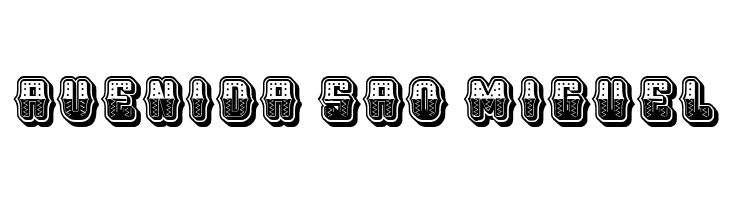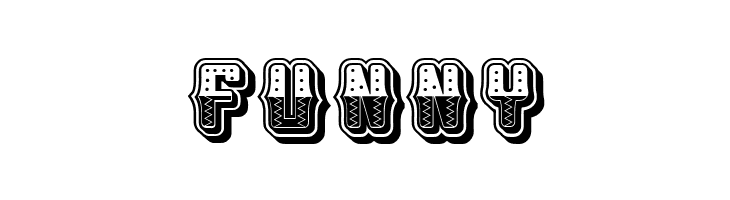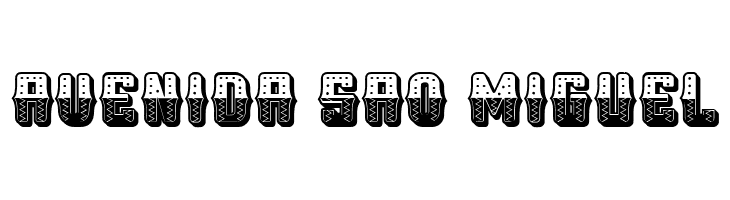
• Amidah-Regular
An elegant script font with flowing, ornate cursive letters and intricate flourishes.
• Amidah-Regular
An elegant script font with intricate loops and swashes, ideal for artistic projects.
• Amiela
An elegant, flowing script font with ornate, cursive strokes.
• Amigate Endgame
A bold, energetic script font with a handwritten style.
• Amigate Endgame Italic
A bold, italicized handwritten font with dynamic strokes.
• Amigdala
A bold, dynamic script font with a handwritten feel and elegant curves.
• Amigdala
A bold, dynamic script font with a modern and flowing style.
• Amigo Regular
A bold, decorative font with intricate patterns and a three-dimensional effect.
• Amigo Rustique Regular
A bold, decorative font with intricate patterns and a three-dimensional effect.
• Amigos
A bold, cursive script font with elegant, flowing letterforms.
• Amigos Script
A bold, flowing script font with elegant curves and dynamic strokes.
• Amigos Script
A bold, flowing script font with interconnected letters and a lively, dynamic style.
• Amigoste
A lively and expressive handwritten font with dynamic strokes and playful loops.
• Amigoste Italic
A dynamic, flowing script font with an elegant, handwritten style.
• Amika Blackletter Free Font
A bold, gothic blackletter font with intricate, angular designs.
• Amiko
A clean, modern sans-serif font with excellent readability and versatility.
• Amillea
An elegant, flowing script font with modern curves and delicate loops.
• AmilliaRocheteDemo
A modern, handwritten font with elegant, fluid strokes and dynamic contrast.
• Amillina
A graceful and elegant script font with fluid, connected strokes.
• Amilly Signature
A flowing, cursive font that mimics elegant handwriting.